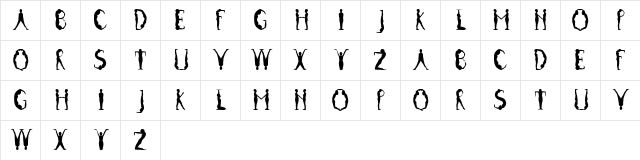
Postures MF Initials Free Font
Postures MF Initials
Style: Initials
Design Context for Postures MF
Postures MF is a composed and adaptable typeface that performs quietly and consistently across a wide range of design contexts.